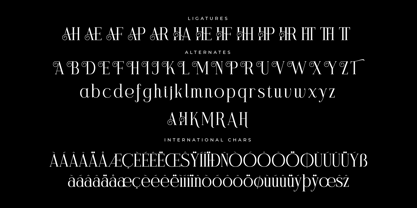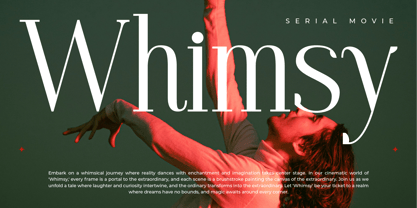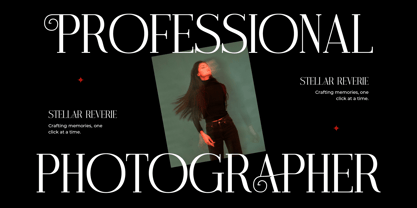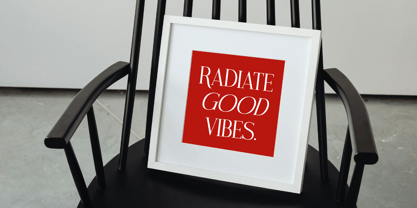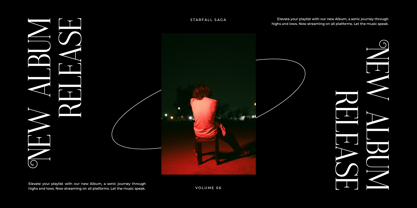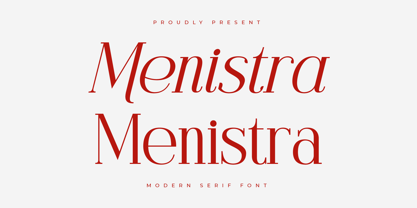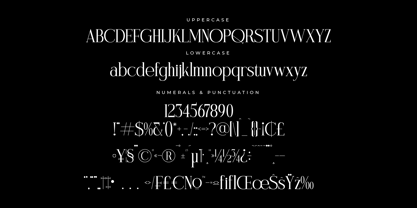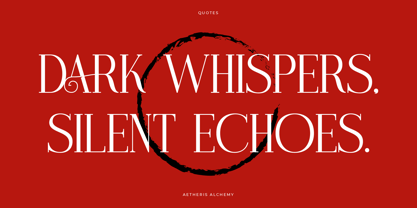
Menistra
The Menistra Font Family was designed by Heru Utama Putra and published by Letterena Studios. Menistra contains 2 styles and family package options. More about this family
Menistra – Modern Serif Font , from Letterena, is a Luxury Serif font, suitable for any projects such as: logos, branding projects, homeware designs, product packaging, mugs, quotes, posters, shopping bags, t-shirts, book covers, name card, invitation cards, greeting cards, label, photography, watermark, special events, and all your other luxury and beautiful projects that need a Luxury serif taste.